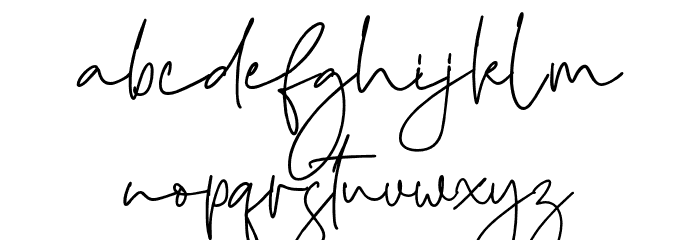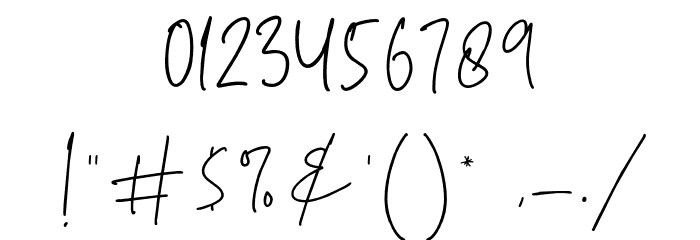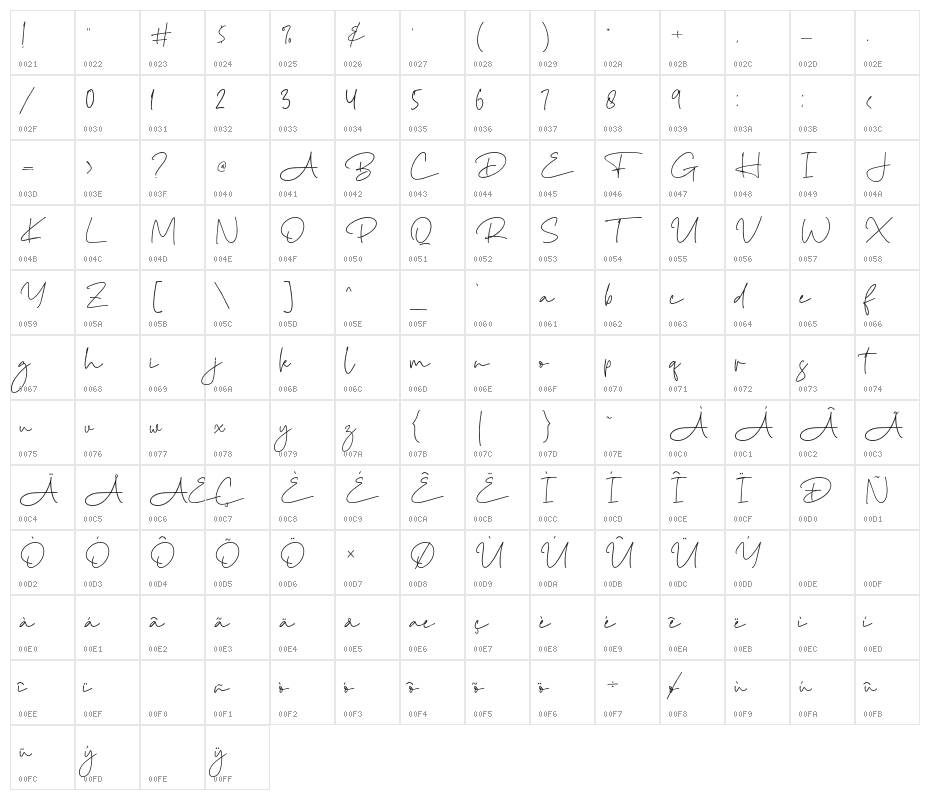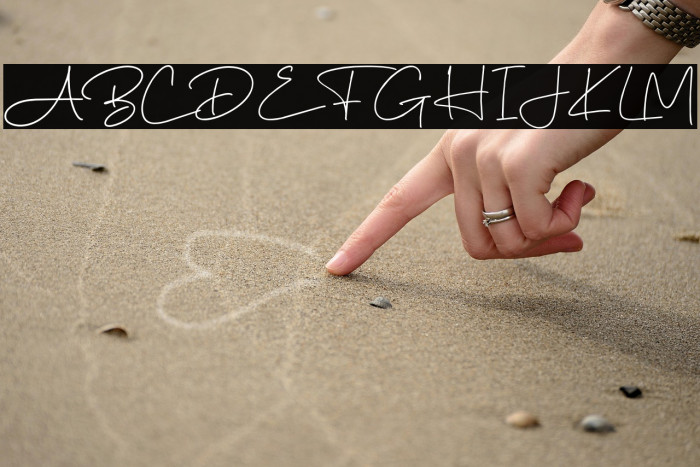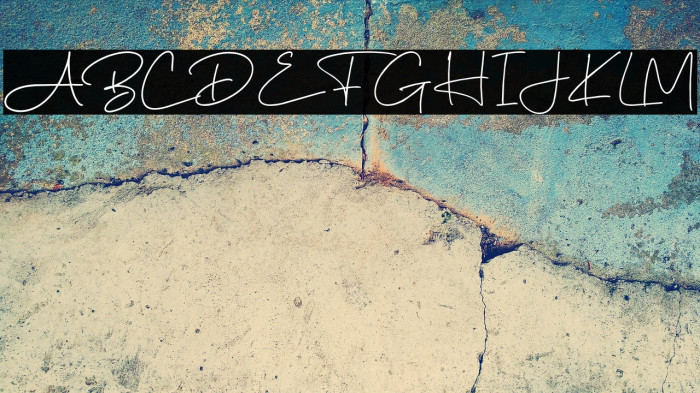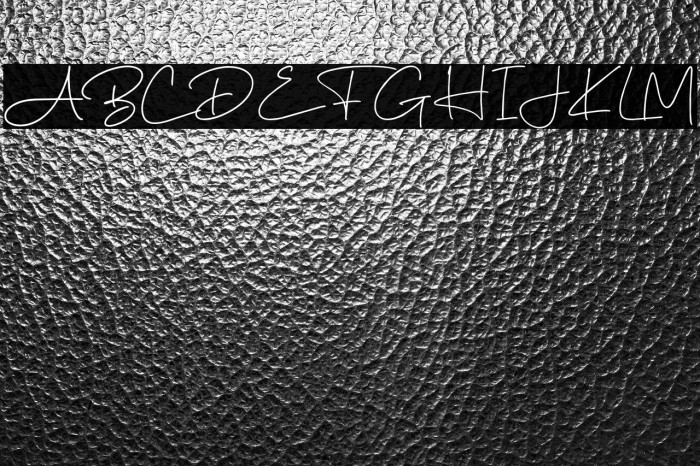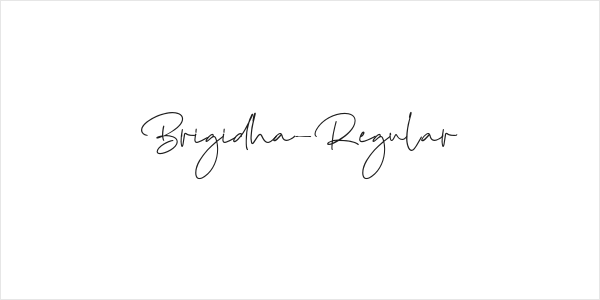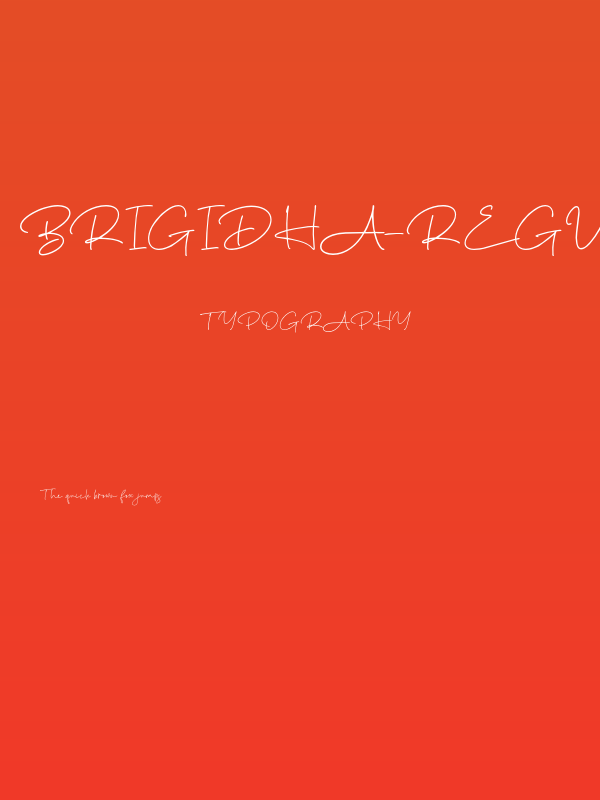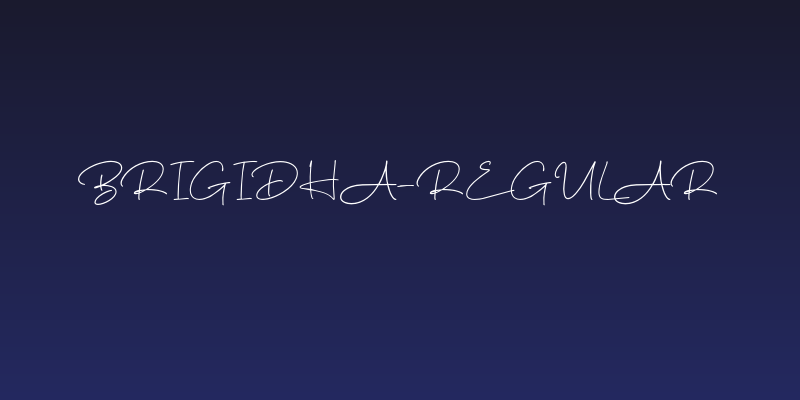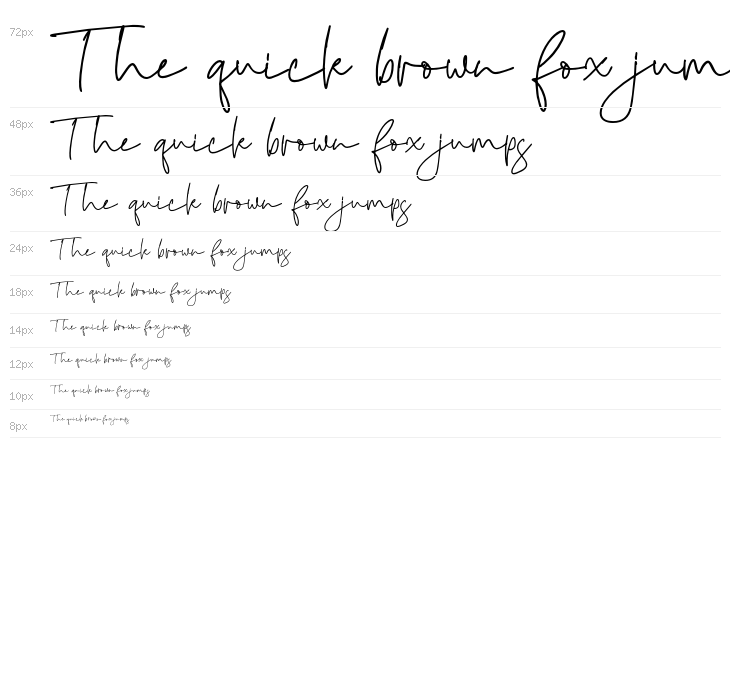
Brigidha-Regular Font
This font exudes a casual and elegant handwritten style, characterized by its fluid and continuous strokes. The uppercase letters are slightly more structured, while the lowercase letters exhibit a more freeform and flowing appearance. The numbers and special characters maintain the same handwritten aesthetic, providing a cohesive look throughout. The overall design is airy and light, with a natural rhythm that mimics the movement of a pen on paper. This font is perfect for adding a personal touch to any project, offering a sense of warmth and approachability.
A casual, elegant handwritten font with fluid strokes.
- Proposed Projects: Ideal for wedding invitations, personal branding, greeting cards, and social media graphics.
- Use Case: Logos, Headlines, Invitations